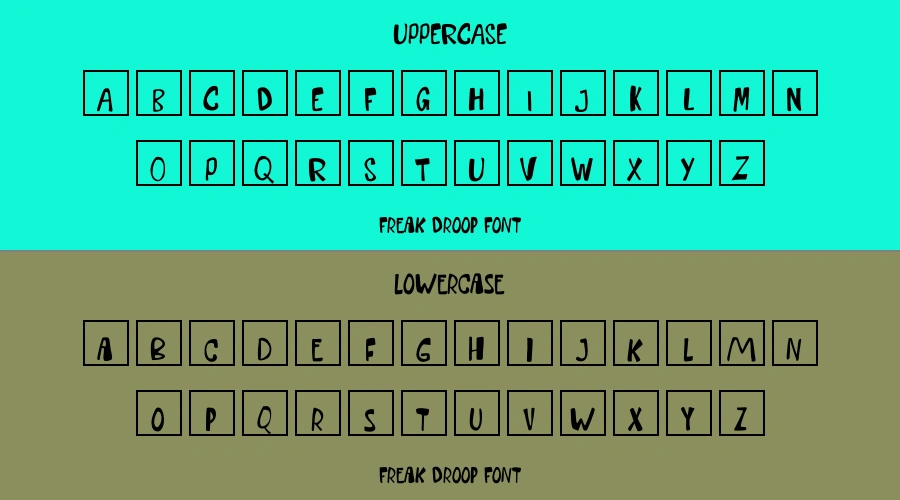
About Freak Droop Font
Designed with precision, Freak Droop Font merges impactful forms with enduring style in every character. This versatility makes it particularly effective for presentation decks, where reliability and market relevance directly impact communication quality. Each letterform demonstrates meticulous craftsmanship.
Technical excellence shines through elements like rhythmic patterns and stylistic alternates, enhancing typographic versatility. In brand manuals settings, Freak Droop Font proves its worth through superior screen rendering. The thoughtful execution of aperture size and technical innovation ensures professional results.